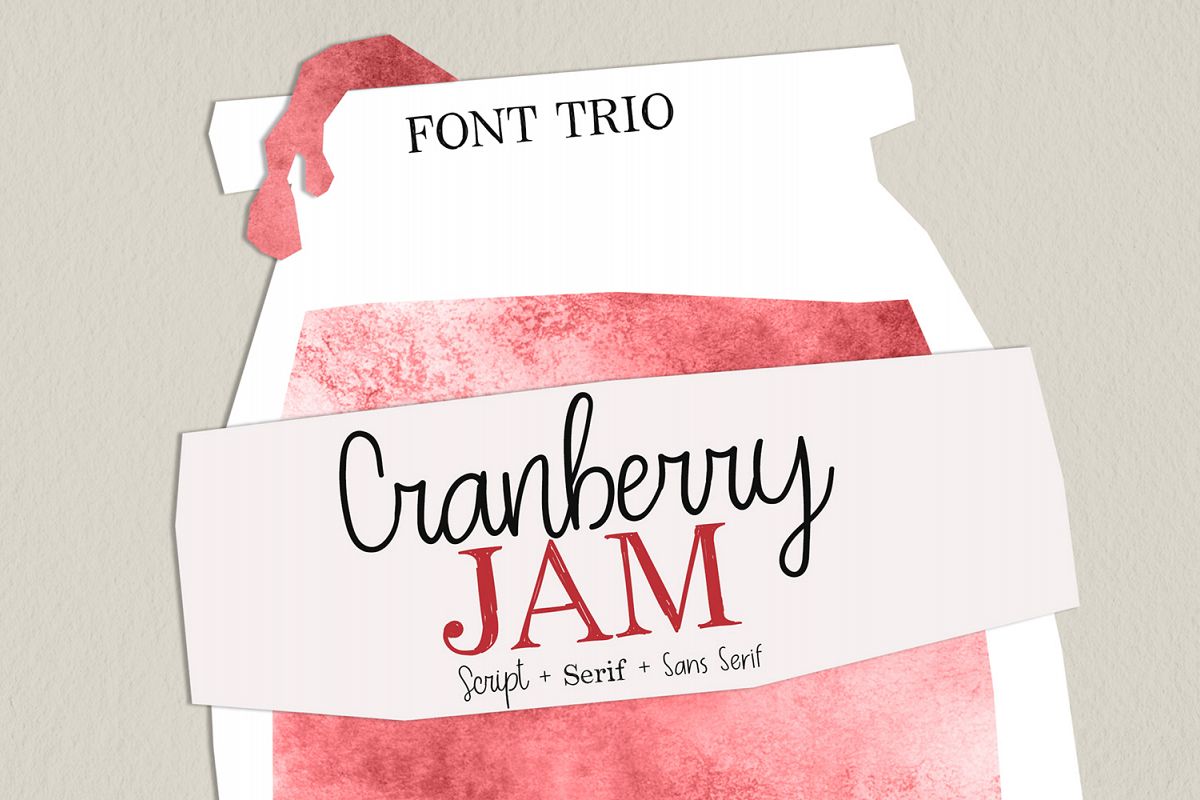
Cranberry Jam Font Trio.
Hello!I’m pleased to introduce my handwritten Font Trio! Cranberry Jam includes Script, Serif and Sans Serif, which perfectly cooperating for creating stunning designs.
• Cranberry Jam Script. An elegant monoline handwritten font will give your inscription a hint of authenticity.
• Cranberry Jam Serif. Handcrafted serif font was create to give your design handmade feel and personal touch.
• Cranberry Jam Sans Serif. Eeasily legible handwritten font which would work for a wide variety of purposes.
You can use this fonts together or apart to adding 'hand lettered' look to your designs. Cranberry Jam is perfect for branding, logos, hand lettering style compositions, recipe books, greeting cards, product packaging, social media, blogs, scrapbooking, headings, flyers, posters, book covers, printed quotes, apparel design, album covers and much more.
Cranberry Jam support English and Russian languages.